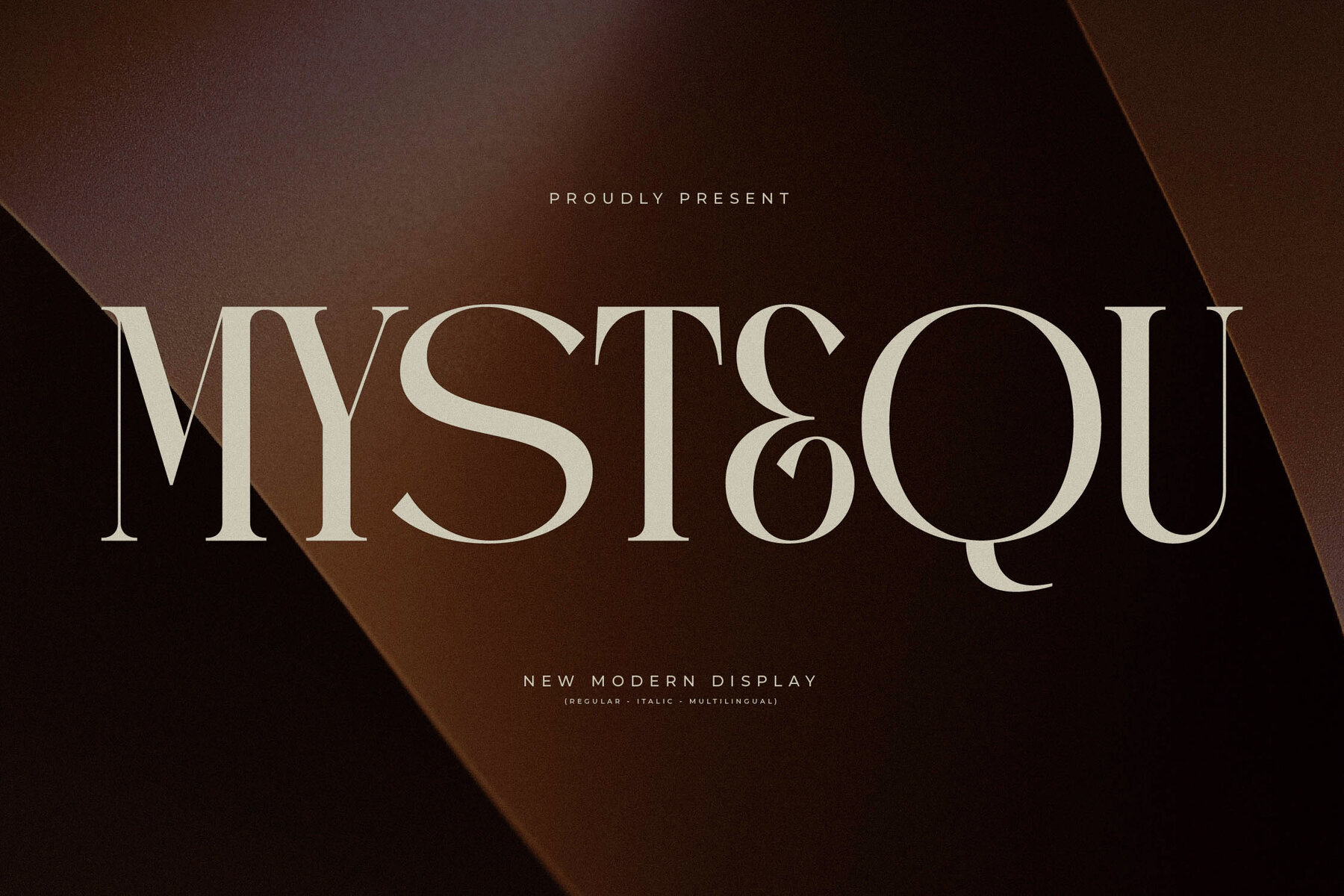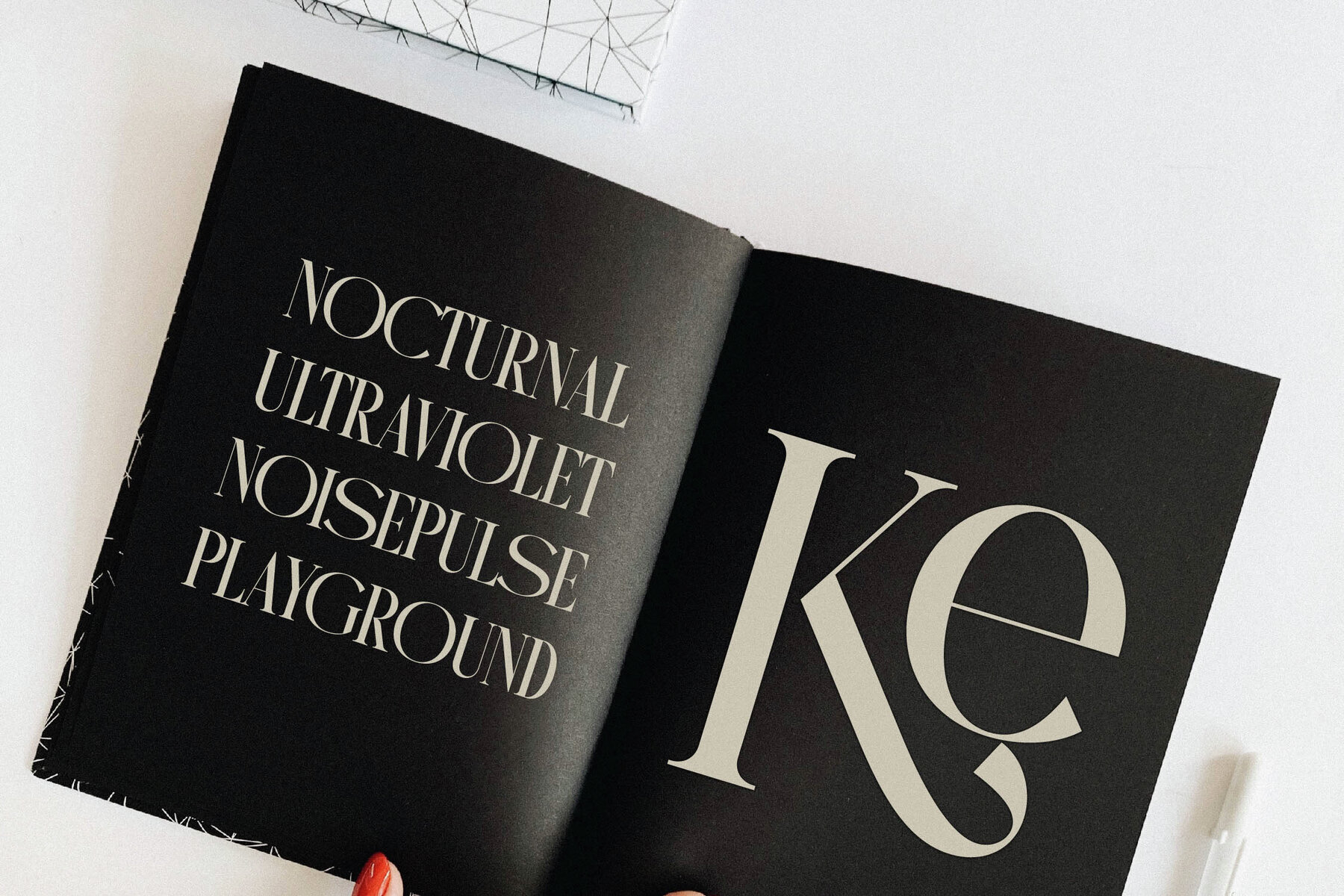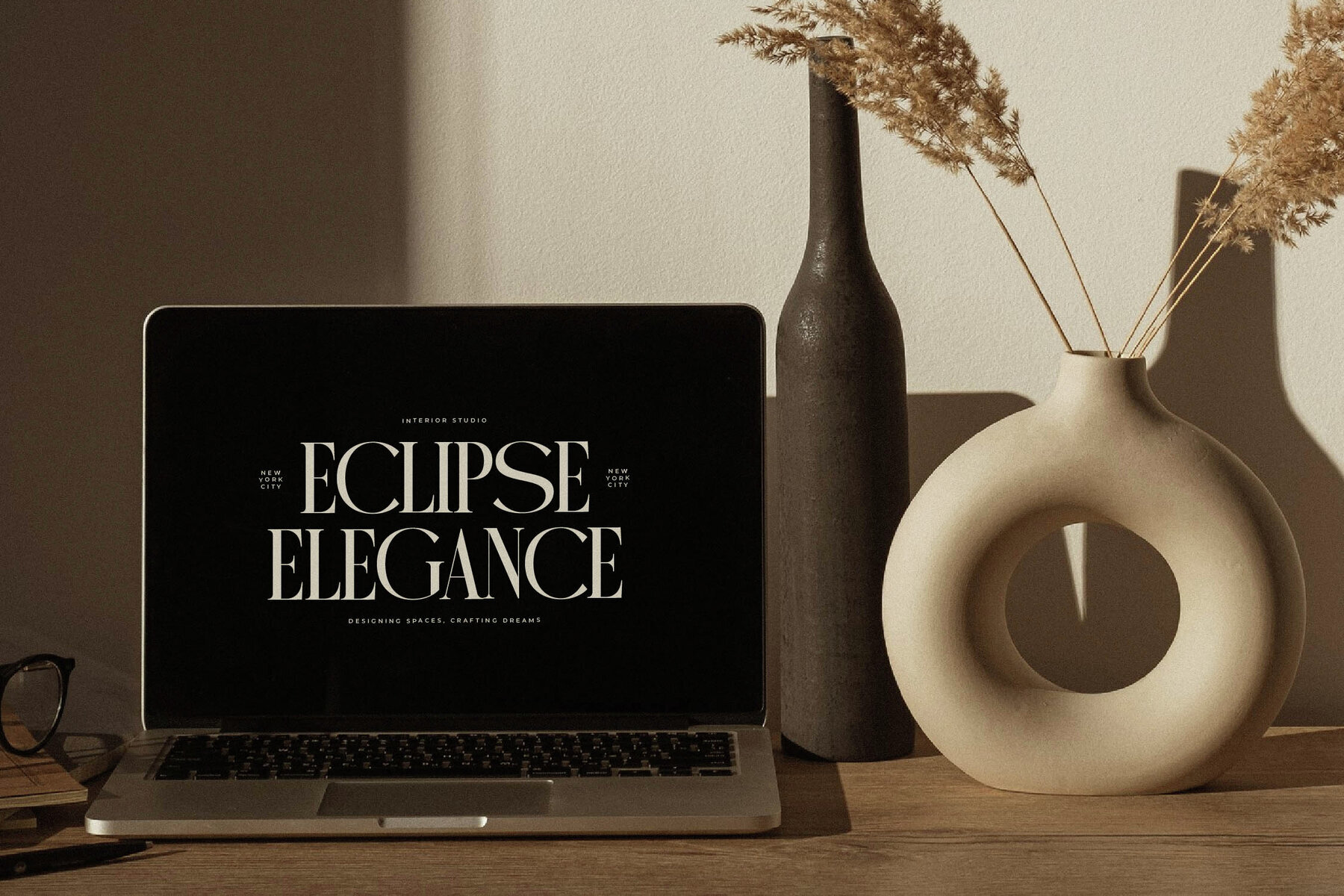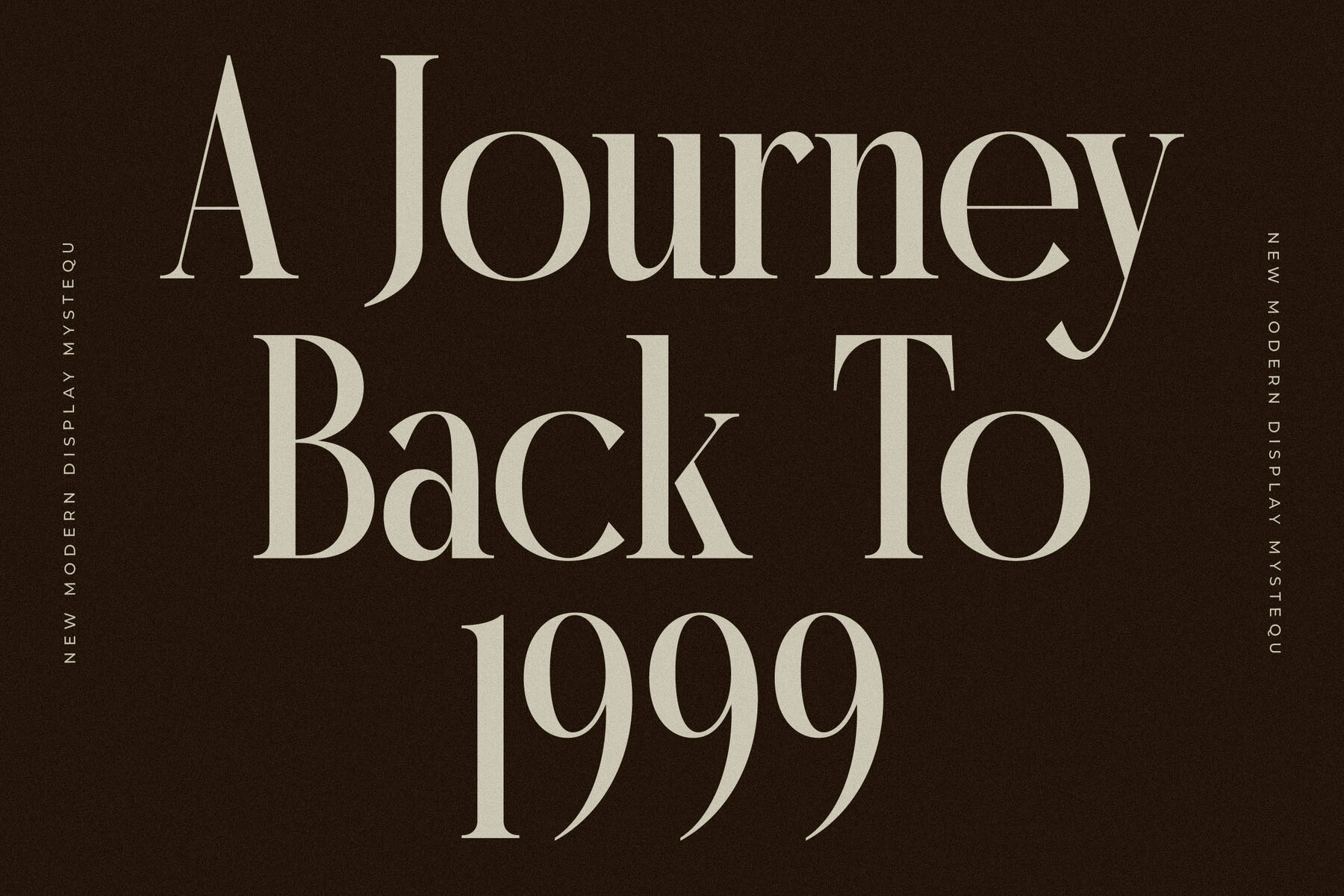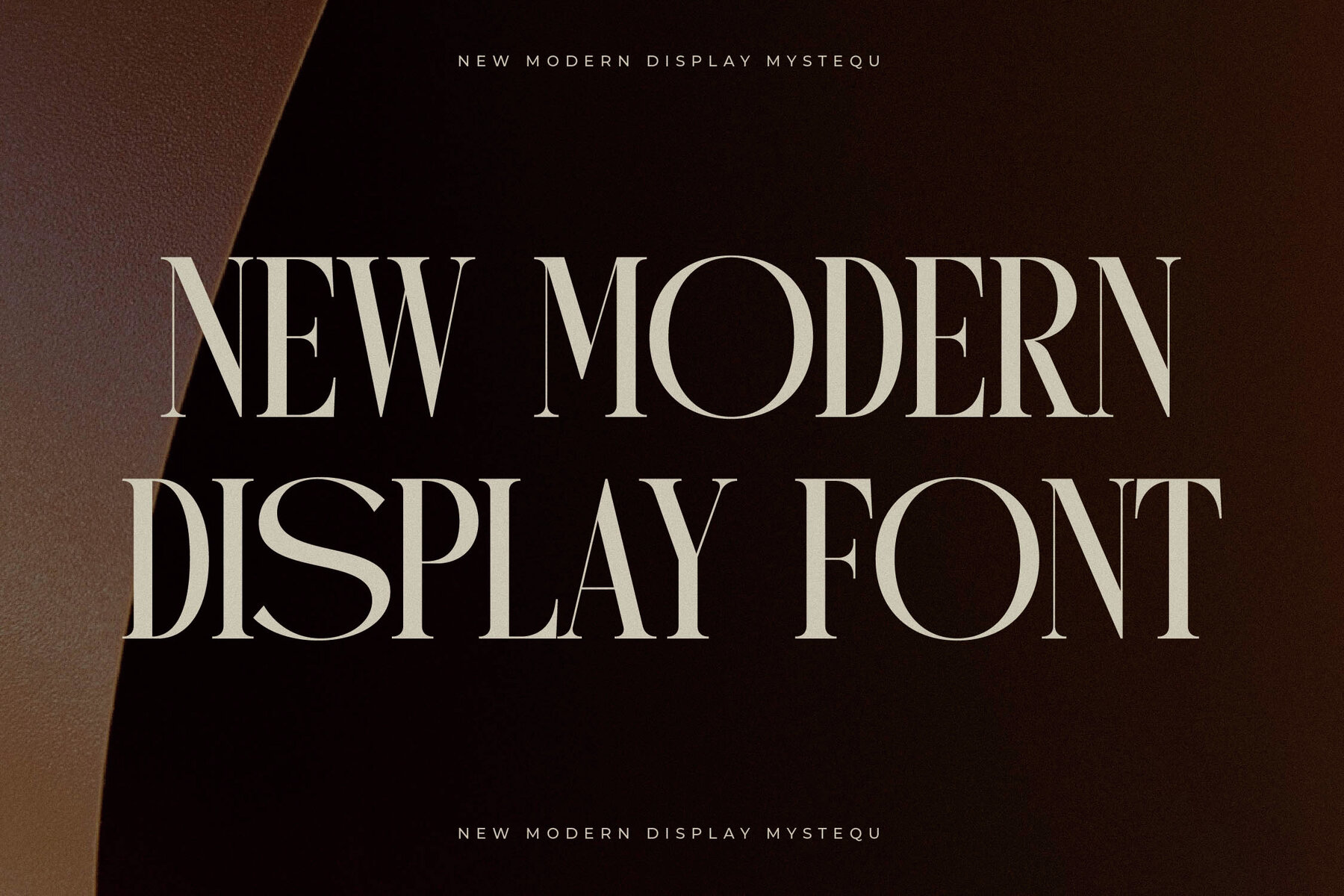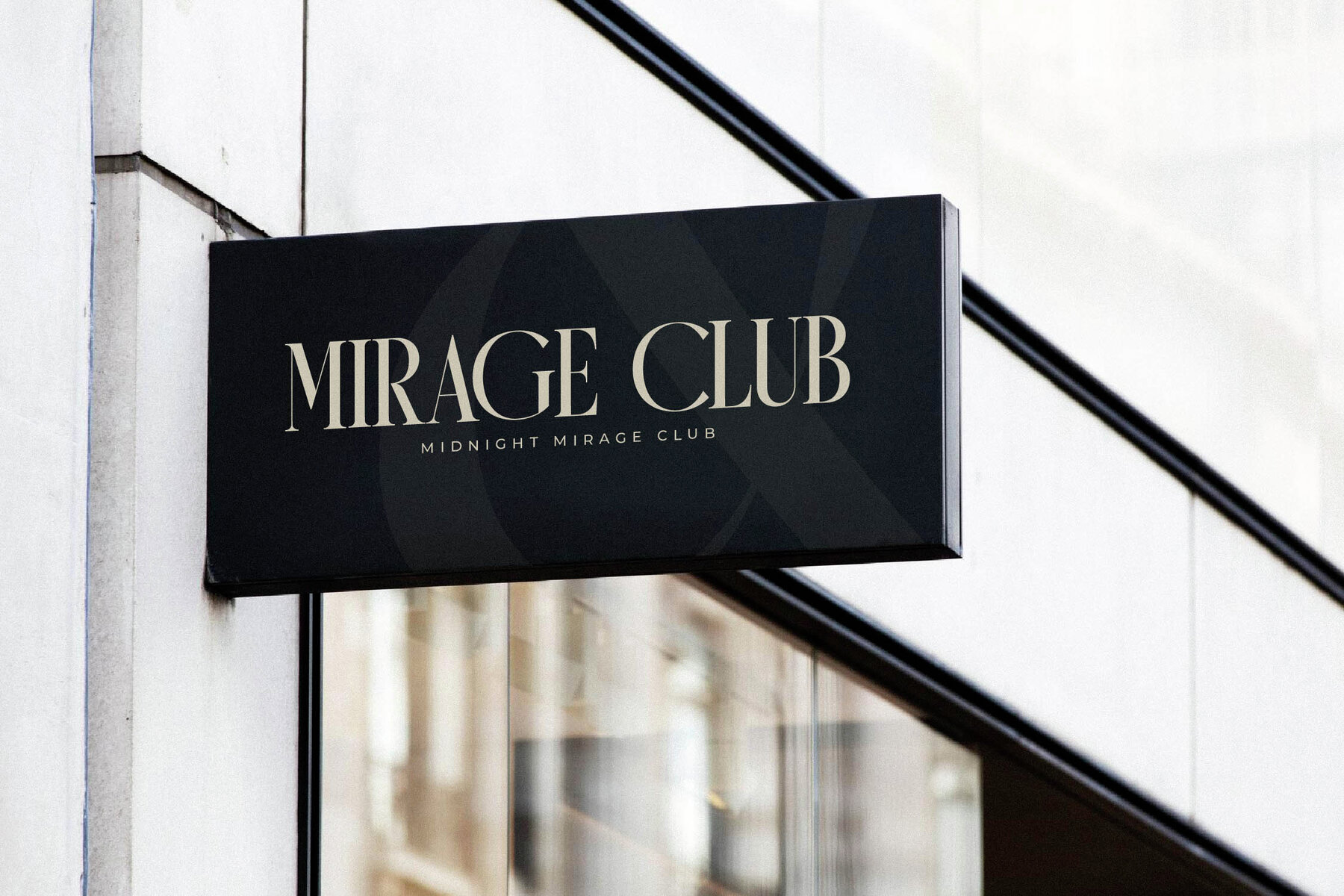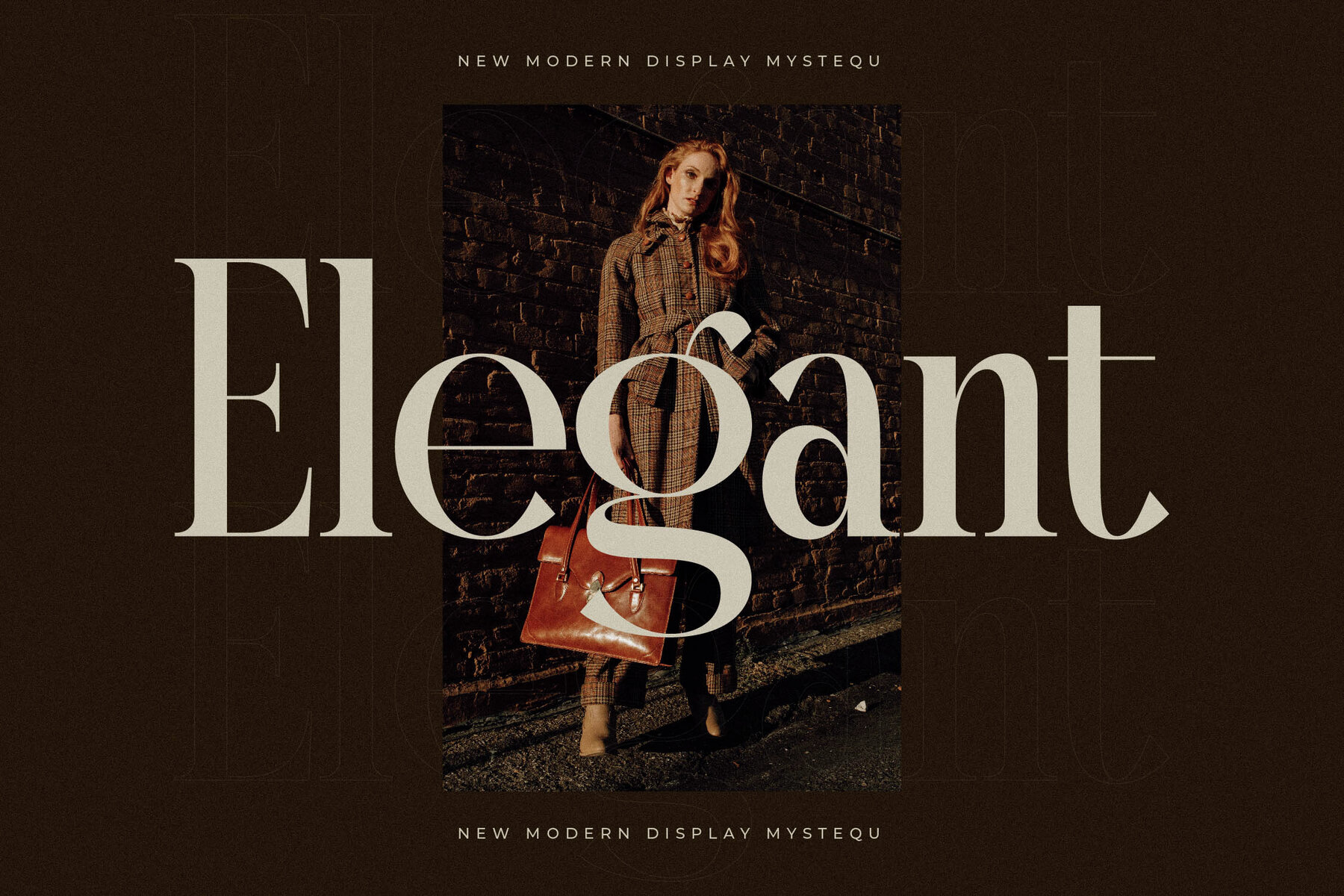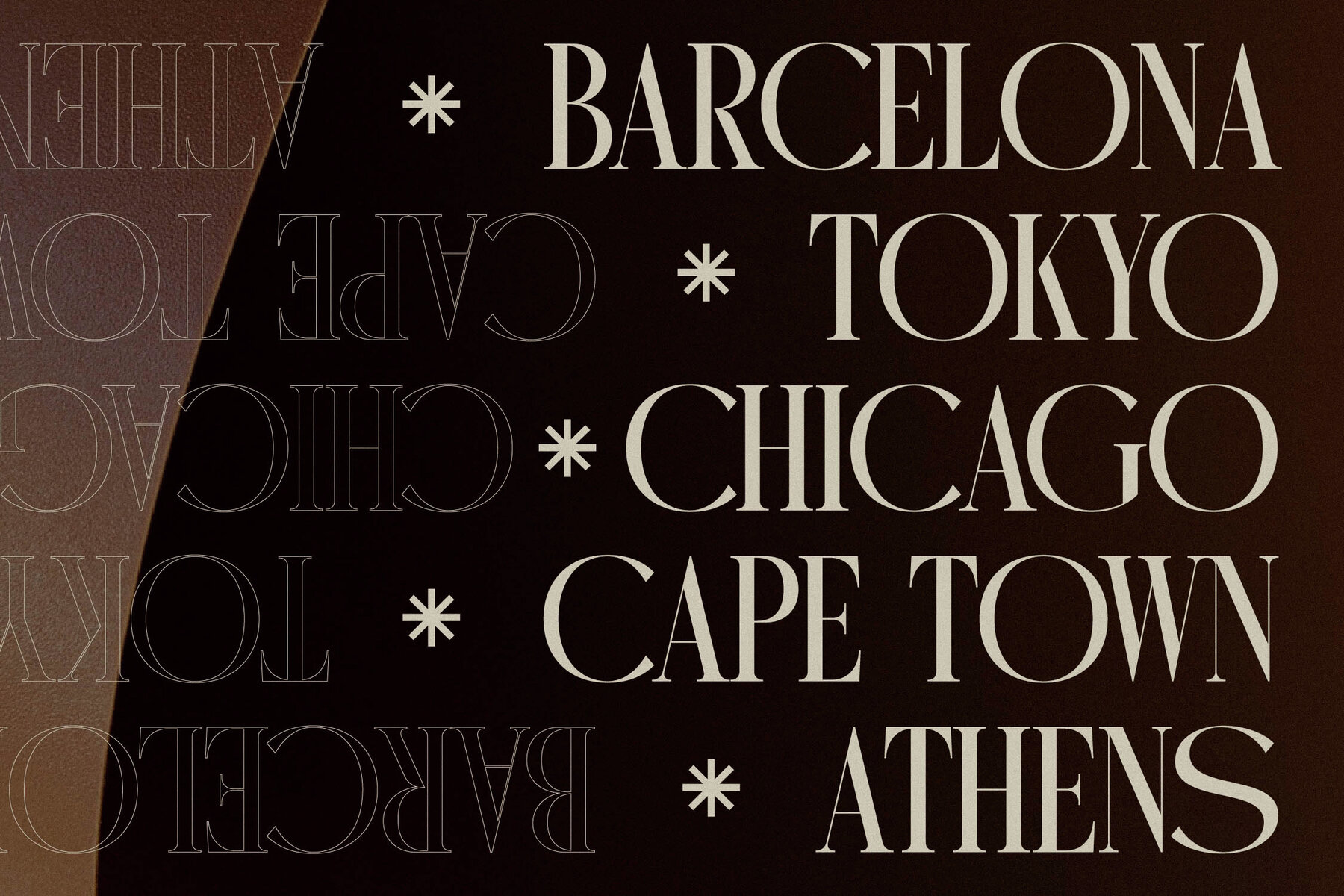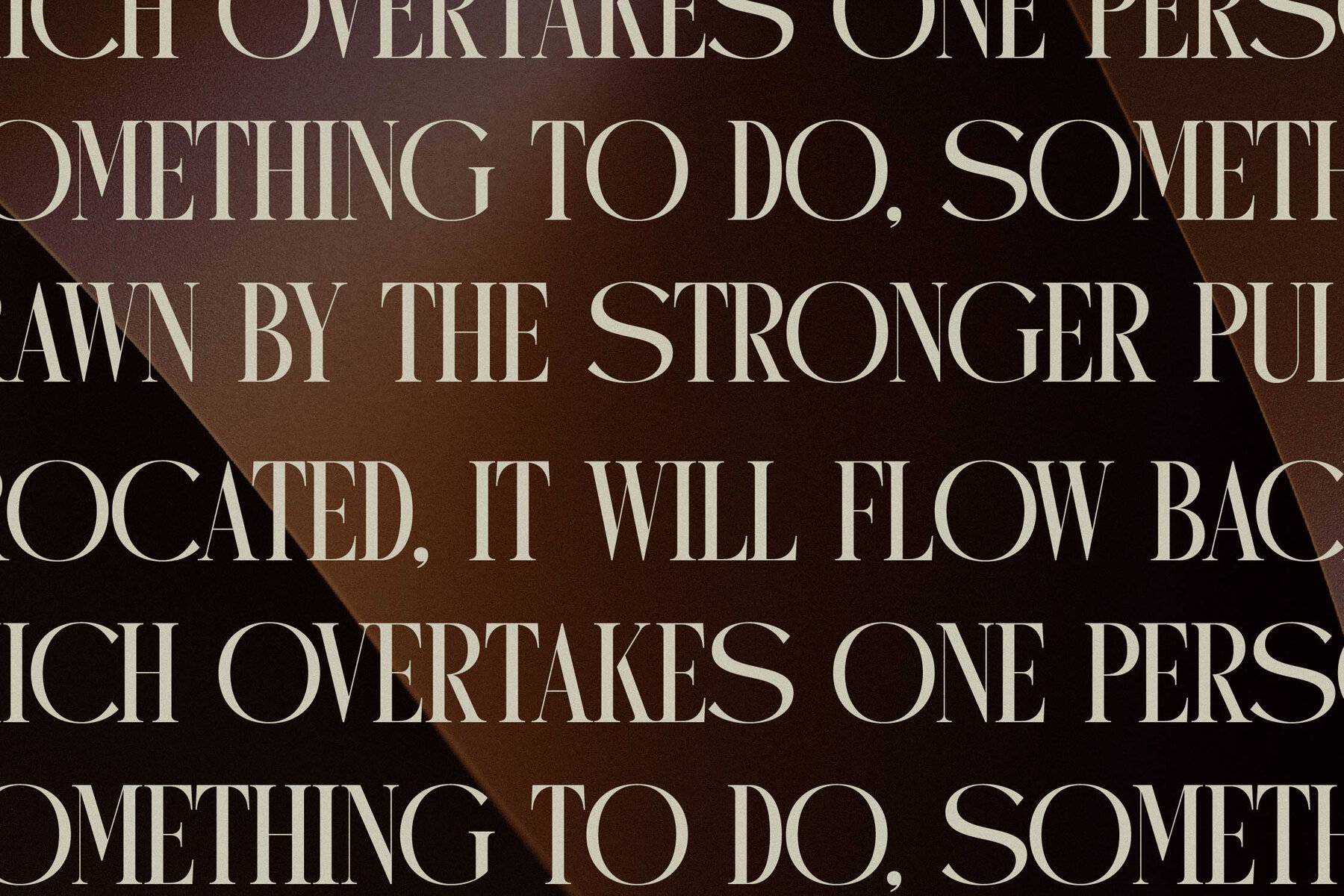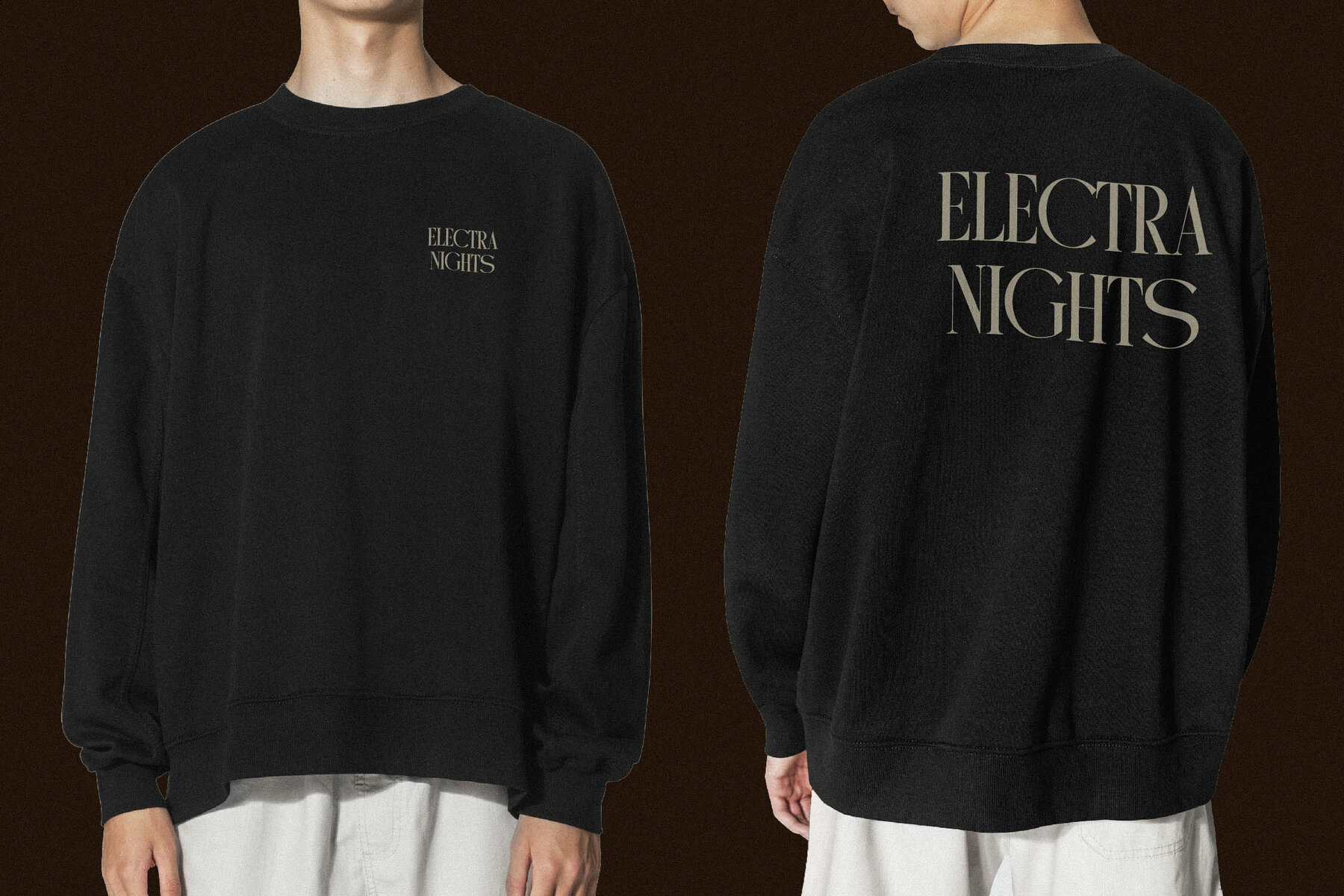
Mystequ Font
Introducing Mystequ Typeface by Storytype Studio—a striking serif font that seamlessly blends modern and classic elements for a unique, timeless aesthetic. This typeface is an ideal choice for creating sophisticated logos, captivating book or movie titles, and luxurious fashion branding. Whether you're designing for a magazine, crafting elegant lettering, or showcasing quotes, Mystequ is your go-to solution.Mystequ Typeface: An Elegant Choice